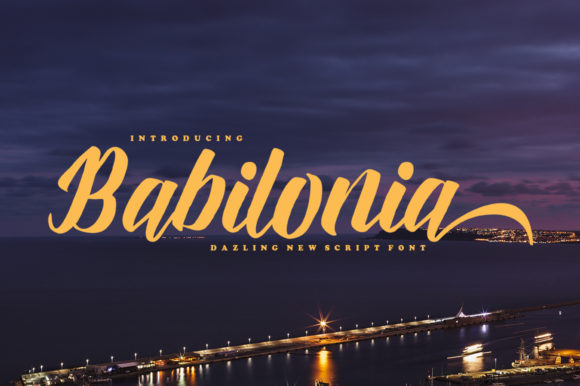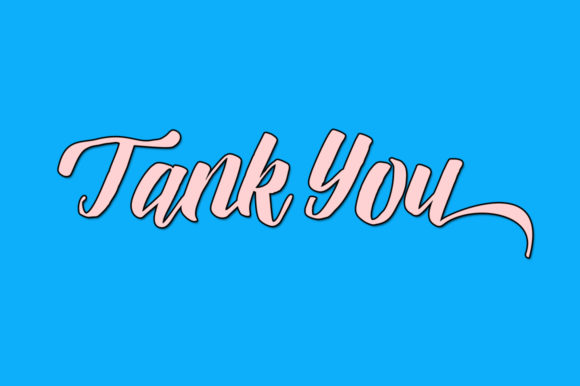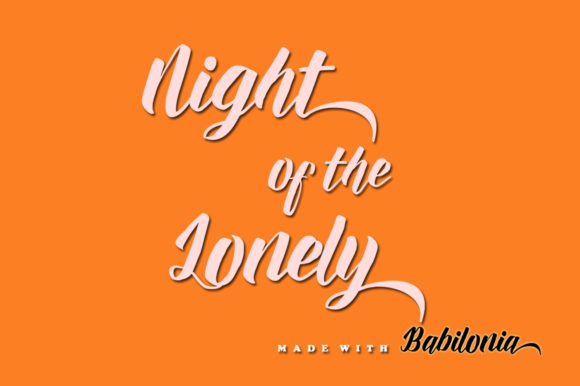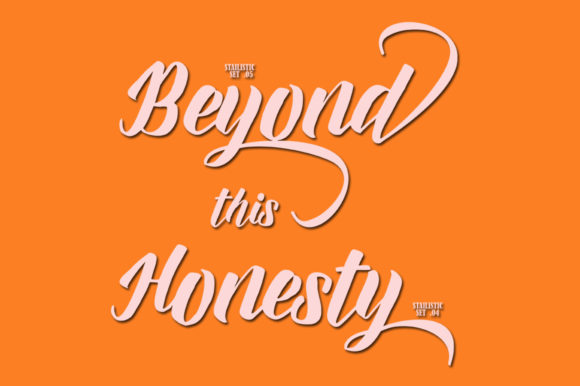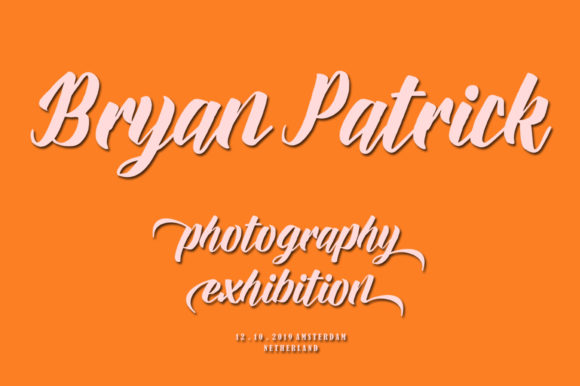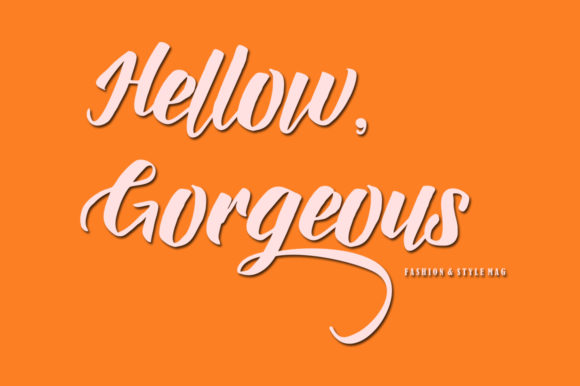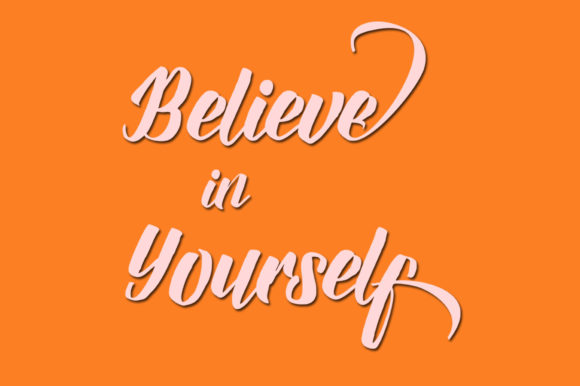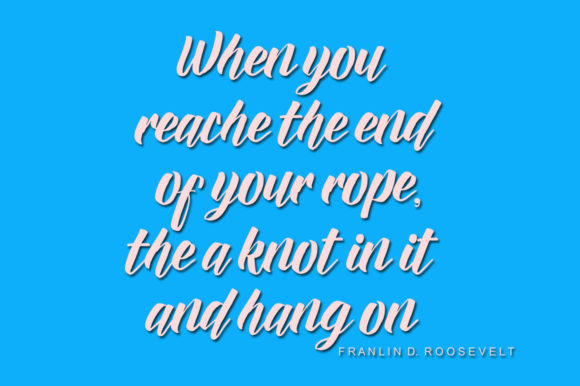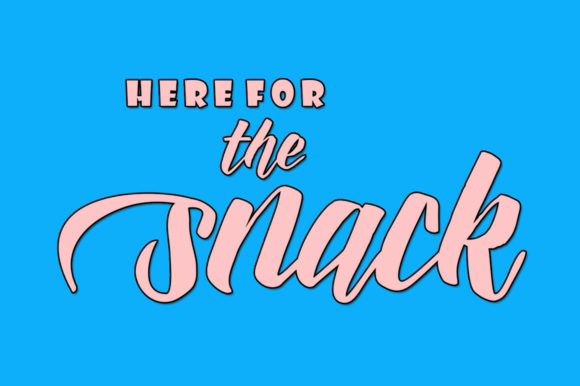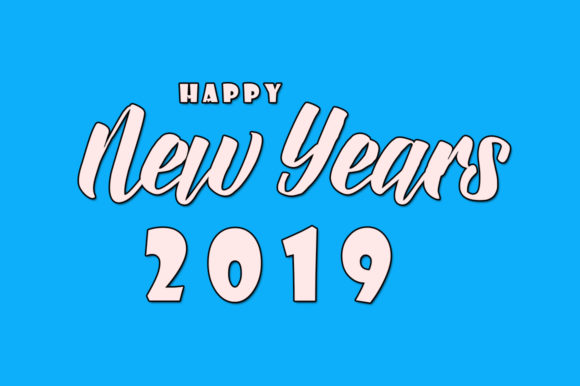
Babilonia Font
About Babilonia Font
The Babilonia is a vintage, feminine font with an irregular baseline. It can be used for wedding invitations, thank you cards, quotes, greeting cards, logos and much more!